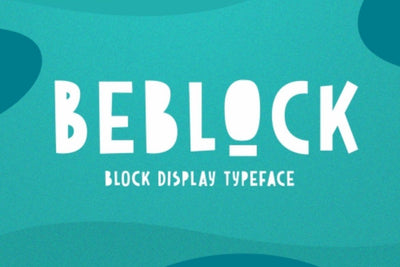
Beblock – Display Typeface
Introducing Beblock – Display Typeface
Beblock combines attractive curves with a fresh urban edge and build with all caps letters; delivering a stylish script which is guaranteed to add an eye-catching appeal to your logo designs, brand imagery, quotes, product packaging, merchandise & social media posts
- All Caps letters
- Numbers & Punctuation
- Opentype Features
- Support for 21 languages: Afrikaans Albanian Croatian Czech Danish Dutch English Estonian Finnish French German Hungarian Italian Norwegian Polish Portuguese Slovak Slovenian Spanisch Swedish Zulu